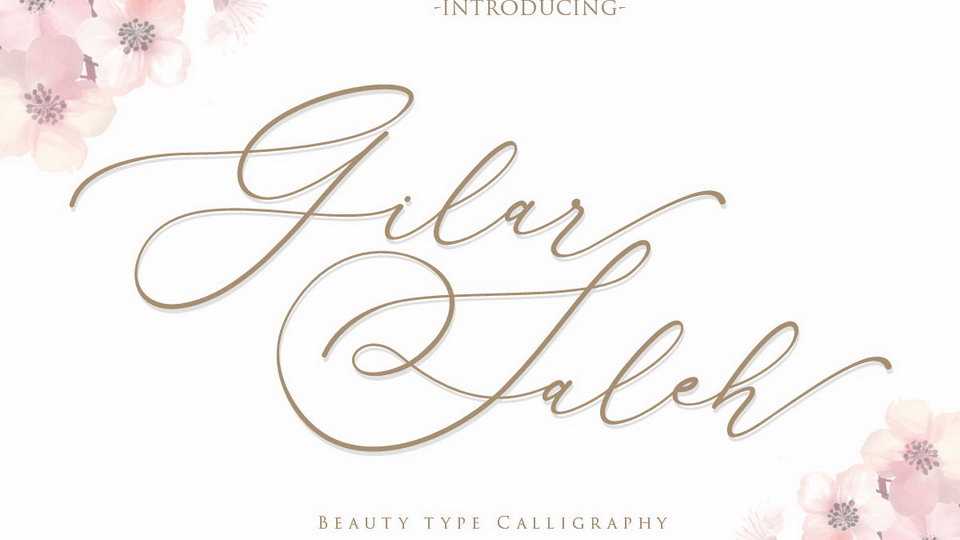
Download Gilar Saleh font, a beautiful signature script, fashionable and super-cool with some extra stylish features. Gilar Saleh is perfect for logo, invitations and cards, wedding, branding and more.